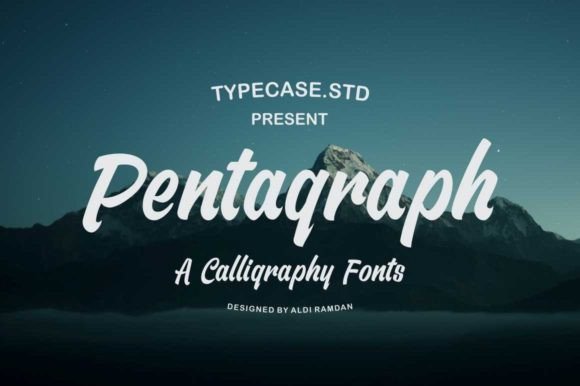
Discover Pentagraph Font, the epitome of handwritten elegance that will elevate your creative endeavors to unparalleled heights. Crafted by Typecase, this exquisite script font exudes an unmatched charm that will capture hearts and leave a lasting impression.
Unleash your imagination and witness the transformative power of Pentagraph Font. Its meticulously designed characters dance across the page, adding a touch of sophistication and uniqueness to every project. Whether you're crafting heartfelt wedding invitations, promoting special events, or building a powerful brand identity, Pentagraph Font empowers you to convey your message with flair and distinction.
Imagine the impact your T-shirts will make, adorned with the captivating curves of Pentagraph Font. Your books will become literary masterpieces, their covers graced with its timeless beauty. Name cards and logos will exude an air of professionalism and elegance, leaving a lasting impression on clients and colleagues alike. Posters and signatures will take on a new level of allure, drawing attention and sparking conversations.
Embrace the artistry of Pentagraph Font and elevate your projects to extraordinary heights. Experience the joy of creating stunning designs that speak volumes and make an unforgettable statement. Let Pentagraph Font be your creative companion, transforming your words into works of art.